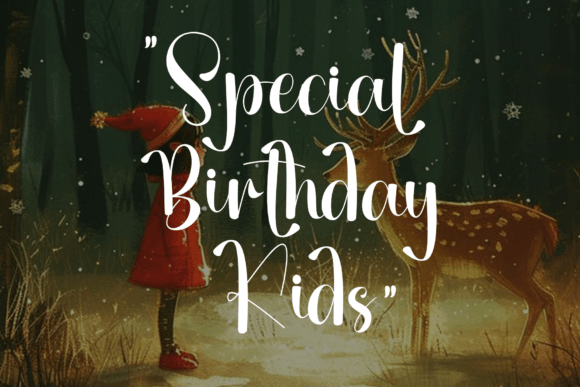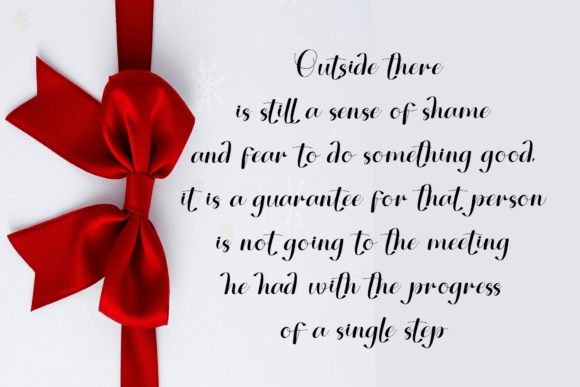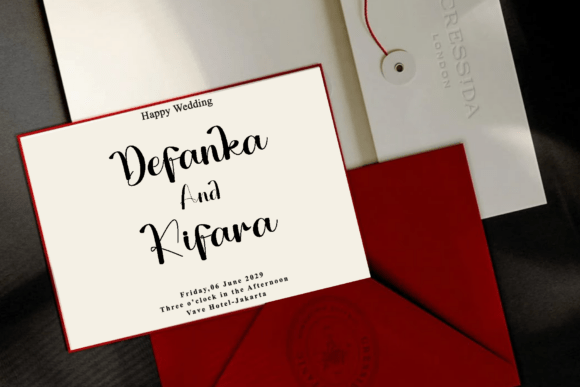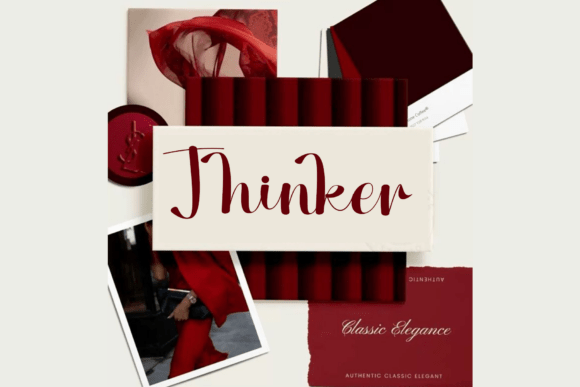
Introducing Agenda Buffering Font: Elevate Your Designs with Elegance
In the world of typography, a font can make or break the aesthetic of a design. For those seeking a touch of elegance, sophistication, and romance, Agenda Buffering Font is an exceptional choice. This beautiful, handwritten script font is designed to bring a level of refinement and style to various projects, making it a must-have for designers and crafters alike.
What is Agenda Buffering Font?
Agenda Buffering Font is described as a graceful, modern, and stylized handwritten script font. Its smooth, fluid strokes and lovely ornamental curves give it a distinctly feminine, professional, and slightly romantic feel. This unique combination of characteristics makes it versatile for a wide range of applications.
Key Features of Agenda Buffering Font
- Smooth and Fluid Strokes: The font boasts smooth, fluid strokes that contribute to its elegant appearance.
- Lovely Ornamental Curves: The ornamental curves add a touch of sophistication and beauty, making the font perfect for designs that require a bit of luxury.
- Feminine, Professional, and Romantic Touch: The overall feel of the font is feminine yet professional, with a hint of romance, making it suitable for a variety of design projects.
- Consistent Weight and Clean Connections: One of the standout features of Agenda Buffering Font is its consistent weight and clean connections, which ensure excellent legibility.
Use Cases for Agenda Buffering Font
Given its elegant and versatile nature, Agenda Buffering Font can be used in a multitude of projects. Here are some ideal use cases:
- Custom Sublimation Designs: For those creating custom sublimation products, this font adds a touch of elegance and personalization.
- Boutique Branding: Boutiques and small businesses can use this font to create a unique and recognizable brand identity.
- Personalized Gifts: Adding a personalized touch to gifts becomes effortless with a font that exudes warmth and sophistication.
- Custom Stationery: Whether it’s for personal use or as part of a business’s branding, custom stationery designed with Agenda Buffering Font is sure to make a statement.
- Any Project Needing a Stylized Handwritten Script: Beyond the mentioned uses, this font is versatile enough to enhance any project that could benefit from a clean, highly stylized, and beautifully functional handwritten script.
Why Choose Agenda Buffering Font?
Choosing a font for a design project can be overwhelming with the numerous options available. However, Agenda Buffering Font stands out for several reasons:
- Legibility: Despite its elegant and ornamental nature, the font maintains excellent legibility, making it practical for use in various contexts.
- Versatility: Its unique blend of femininity, professionalism, and romance allows it to be used across different design projects.
- Aesthetic Appeal: The font’s smooth strokes and ornamental curves contribute to its aesthetic appeal, making designs stand out.
Agenda Buffering Font is a remarkable addition to the world of typography, offering a blend of elegance, modernity, and functionality. Its suitability for custom sublimation designs, boutique branding, personalized gifts, custom stationery, and more, makes it a valuable resource for designers and crafters. By incorporating Agenda Buffering Font into your projects, you can elevate your designs, adding a touch of sophistication and romance that is sure to captivate.
Whether you’re a professional designer looking to expand your typography arsenal or a crafter seeking to add a personal touch to your creations, Agenda Buffering Font is an excellent choice. Its unique characteristics and versatility ensure that it can meet the demands of a wide range of projects, making it a worthwhile investment for anyone looking to enhance their designs with a beautiful, handwritten script font.